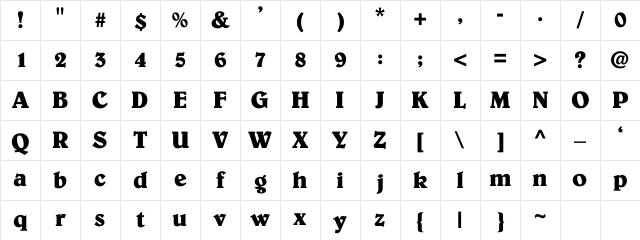
BellyBold Regular
Design Context for BellyBold
BellyBold is a composed and adaptable typeface that performs quietly and consistently across a wide range of design contexts. Its bold stroke weight gives it real presence on the page.